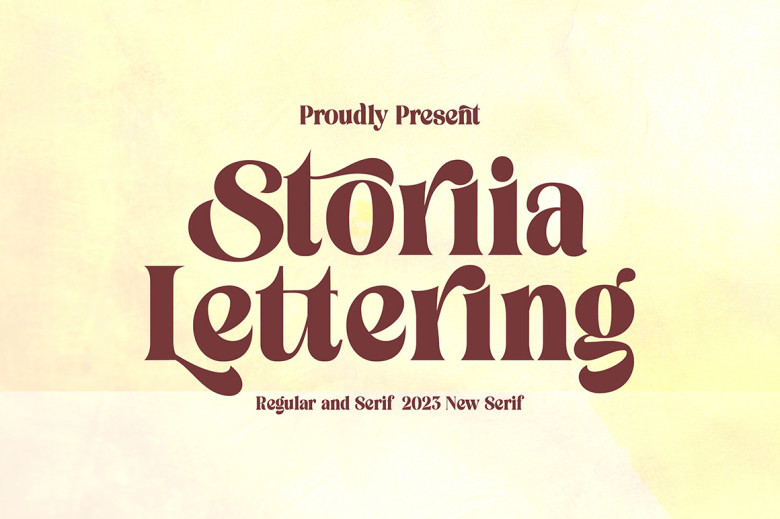
Storia Lettering Serif Style font is perfect as a heading font in editorial writing, featuring italic and upright styling that is easily integrated into various designs. With striking and clean font features perfect for websites, editorial pieces, posters, T-shirt printing, iron-ons, magazine covers.
Storia Lettering Serif Font